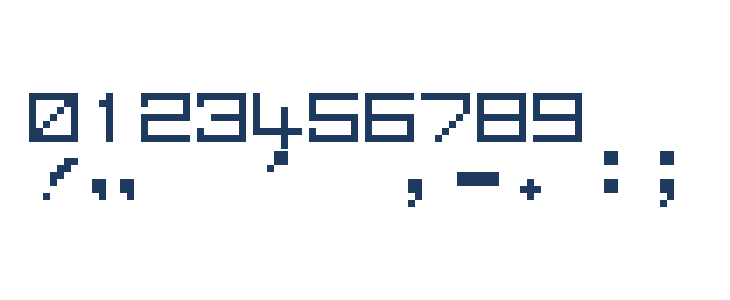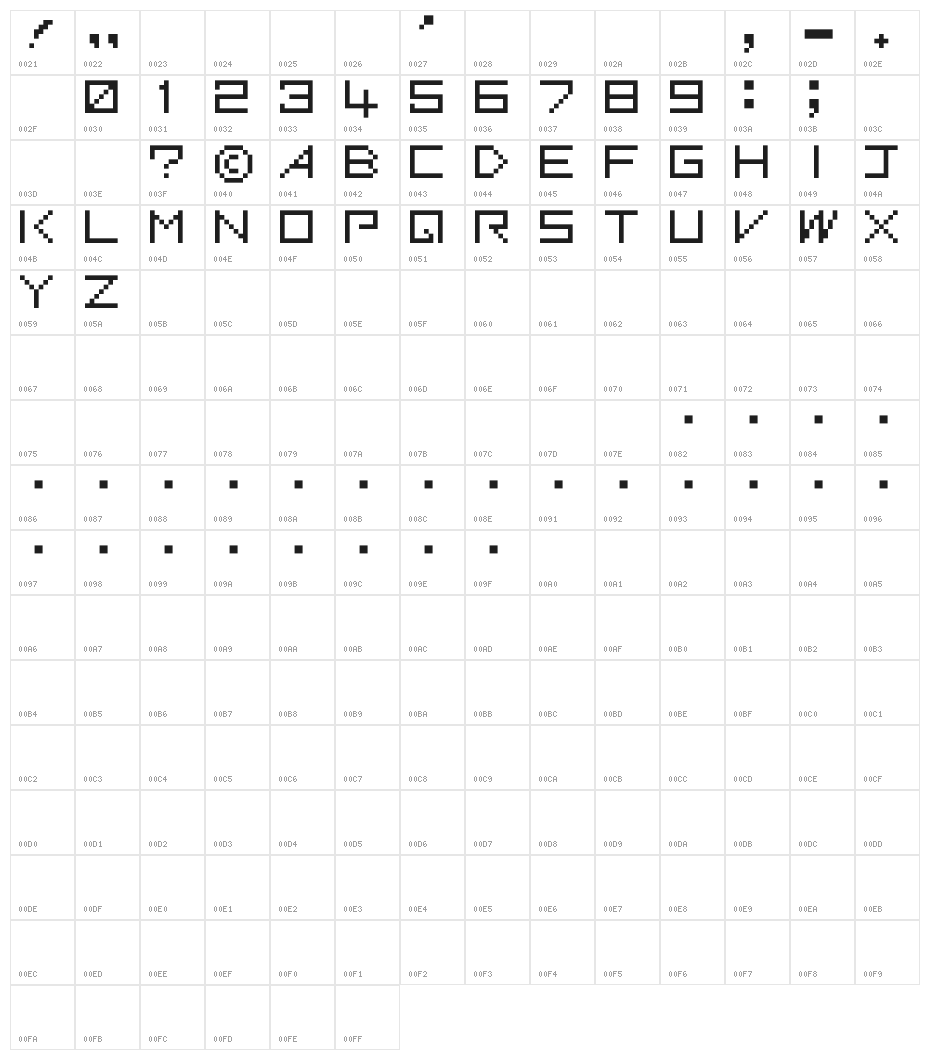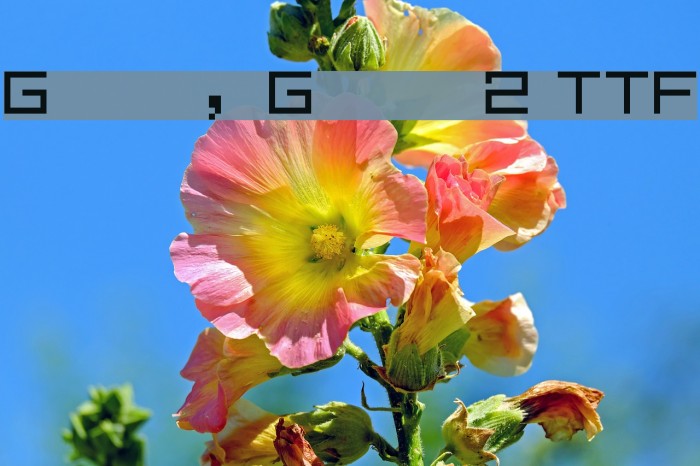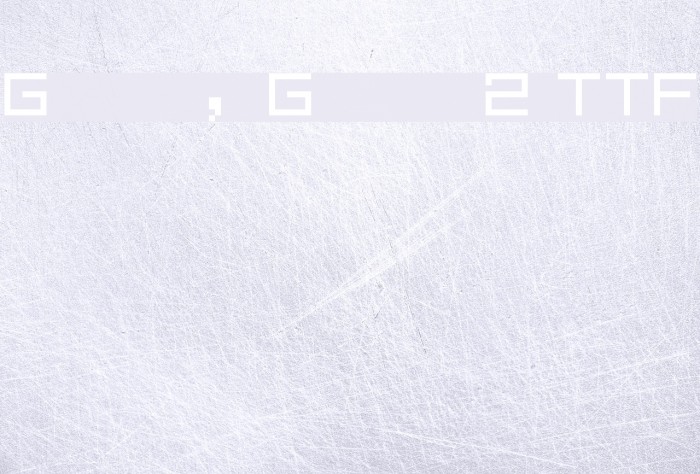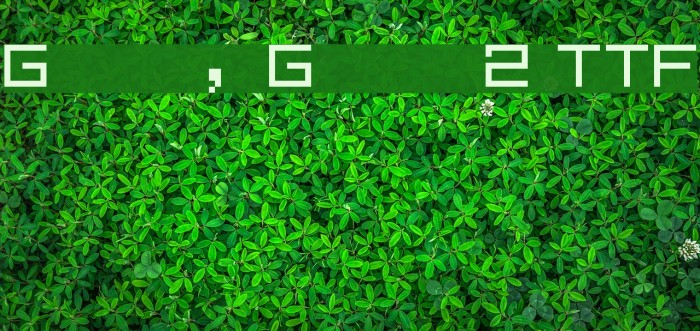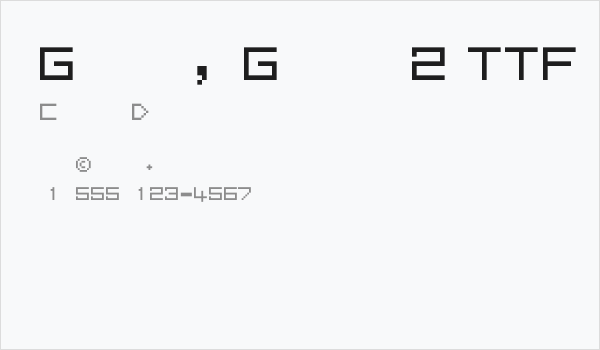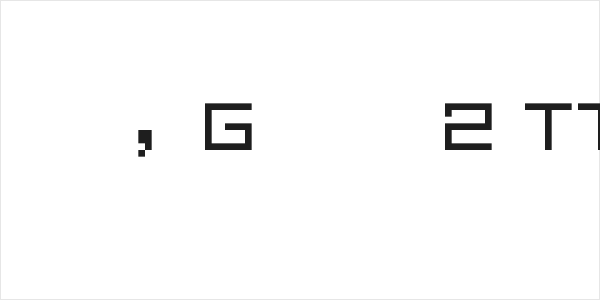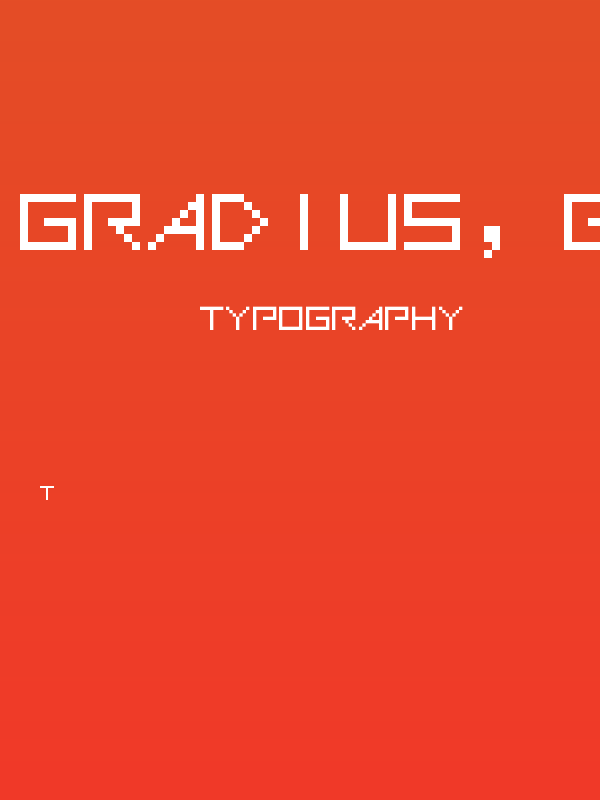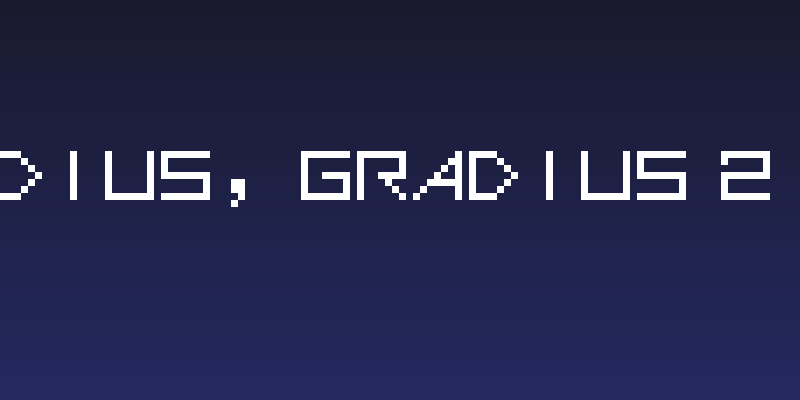
Gradius, Gradius 2 TTF Font
Gradius, Gradius 2 TTF Description
This font features a distinct pixelated design reminiscent of classic arcade games. Each character is constructed with a grid-like precision, giving it a retro digital appearance. The uppercase letters are bold and angular, with unique geometric shapes that enhance its futuristic style. The numerals and special characters maintain this pixelated theme, ensuring consistency across all glyphs. Its design is both nostalgic and modern, making it suitable for projects that aim to evoke a sense of vintage technology or gaming culture.
| Use Case | Logos, Headlines, Digital Art |
| Proposed Projects | Ideal for video game design, retro-themed posters, digital art projects, and any creative work that seeks to capture the essence of 80s arcade aesthetics. |